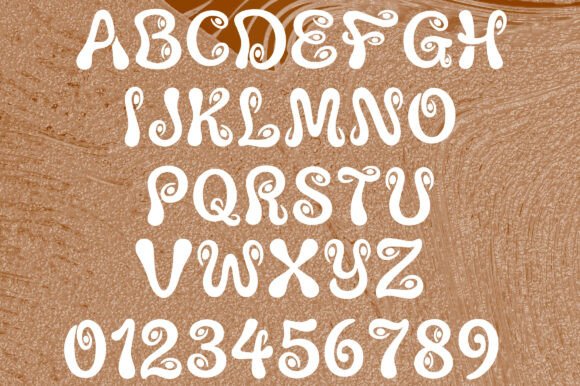
Bloom Swirl Font: The Perfect Addition to Your Creative Designs
Are you a designer or crafter looking for a unique and playful font to add a touch of whimsy to your projects? Look no further than the Bloom Swirl Font! This charming decorative display font is perfect for creating cheerful, creative, and feminine designs that are sure to capture attention.
What is Bloom Swirl Font?
Bloom Swirl is a whimsical decorative display font that features soft, rounded uppercase letters and playful inner swirls. Its bold, flowing shapes give it a charming, dreamy, and handmade feel that’s perfect for a variety of design projects. Whether you’re creating invitations, branding materials, or social media graphics, Bloom Swirl is sure to add a touch of personality and flair.
Key Features of Bloom Swirl Font
• Soft, rounded uppercase letters: The Bloom Swirl Font features soft, rounded uppercase letters that are perfect for creating a feminine and elegant look.
• Playful inner swirls: The playful inner swirls add a touch of whimsy and playfulness to the font, making it perfect for creative and cheerful designs.
• Bold, flowing shapes: The bold, flowing shapes of the font give it a charming, dreamy, and handmade feel that’s perfect for a variety of design projects.
Uses for Bloom Swirl Font
The Bloom Swirl Font is perfect for a variety of design projects, including:
• Invitations: Use Bloom Swirl to create beautiful and unique invitations for weddings, baby showers, and other special occasions.
• Branding materials: Add a touch of personality and whimsy to your branding materials, such as logos, business cards, and letterheads.
• Social media graphics: Use Bloom Swirl to create eye-catching social media graphics that are sure to capture attention.
• Crafting projects: The Bloom Swirl Font is perfect for crafters who want to add a personal touch to their projects, such as handmade cards, scrapbooking, and DIY decor.
Why Choose Bloom Swirl Font?
There are many reasons why you should choose Bloom Swirl Font for your design projects. Here are just a few:
• Unique and playful: The Bloom Swirl Font is a unique and playful font that’s sure to add a touch of personality to your designs.
• Feminine and elegant: The soft, rounded uppercase letters and playful inner swirls give the font a feminine and elegant look that’s perfect for a variety of design projects.
• High-quality: The Bloom Swirl Font is a high-quality font that’s perfect for professional design projects.
Tips for Using Bloom Swirl Font
Here are a few tips for using the Bloom Swirl Font:
• Use it sparingly: Because the Bloom Swirl Font is a decorative font, it’s best to use it sparingly to add emphasis and personality to your designs.
• Pair it with a simple font: Pair the Bloom Swirl Font with a simple font to create a beautiful contrast and add visual interest to your designs.
• Experiment with colors and textures: The Bloom Swirl Font looks great in a variety of colors and textures, so don’t be afraid to experiment and find the perfect combination for your design.
The Bloom Swirl Font is a unique and playful font that’s perfect for designers and crafters who want to add a touch of whimsy and personality to their projects. With its soft, rounded uppercase letters and playful inner swirls, this font is sure to capture attention and add a feminine and elegant touch to your designs. Whether you’re creating invitations, branding materials, or social media graphics, the Bloom Swirl Font is a great choice.